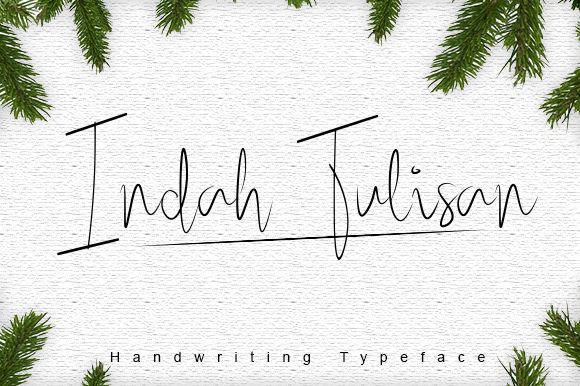
Indah Tulisan Font: Elevate Your Design with a Simple yet Charming Handwriting Font
When it comes to creating visually stunning designs, typography plays a crucial role. The right font can make or break a design project. If you’re looking for a font that can add a touch of elegance and charm to your work, look no further than Indah Tulisan Font. In this article, we’ll explore the features and benefits of Indah Tulisan, a simple yet extraordinary handwriting font that can turn any design project into a beautiful artwork.
What is Indah Tulisan Font?
Indah Tulisan is a handwriting font that boasts a simple and charming design. Its unique nuances make it stand out from other fonts, adding a touch of personality to any design project. The font’s simplicity makes it versatile and easy to use, while its charm adds a creative and artistic flair.
Benefits of Using Indah Tulisan Font in Your Design
Using Indah Tulisan Font in your design project can bring numerous benefits. Here are a few:
- Elegance and Sophistication: Indah Tulisan adds a touch of elegance and sophistication to any design project, making it perfect for projects that require a high level of professionalism.
- Uniqueness and Personality: The font’s unique design ensures that your design project stands out from the crowd, adding a touch of personality and creativity.
- Versatility: Indah Tulisan is a versatile font that can be used in various design projects, from branding and advertising to packaging and digital media.
How to Use Indah Tulisan Font in Your Design Project
Using Indah Tulisan Font in your design project is easy. Here are a few tips:
- Pair it with Other Fonts: Indah Tulisan can be paired with other fonts to create a unique and visually appealing design.
- Experiment with Colors: The font looks great in various colors, so don’t be afraid to experiment and find the perfect color scheme for your design.
- Use it for Headings and Titles: Indah Tulisan is perfect for headings and titles, adding a touch of elegance and sophistication to your design.
Design Inspiration: How Indah Tulisan Font Can Elevate Your Work
Indah Tulisan Font can elevate your design work in many ways. Here are a few examples:
- Branding and Identity: Use Indah Tulisan to create a unique and memorable brand identity that stands out from the crowd.
- Advertising and Marketing: The font is perfect for advertising and marketing materials, adding a touch of elegance and sophistication to your campaigns.
- Packaging Design: Indah Tulisan can be used to create beautiful and eye-catching packaging designs that showcase your product in a unique and creative way.
Typography Tips: Getting the Most out of Indah Tulisan Font
Here are a few typography tips to help you get the most out of Indah Tulisan Font:
- Pay Attention to Kerning and Spacing: Make sure to adjust the kerning and spacing to ensure that the text is easy to read and visually appealing.
- Experiment with Font Sizes: Indah Tulisan looks great in various font sizes, so don’t be afraid to experiment and find the perfect size for your design.
- Use it for Emphasis: Use Indah Tulisan to add emphasis to certain words or phrases, creating a visually appealing and easy-to-read design.
Indah Tulisan Font is a simple yet charming handwriting font that can elevate any design project into a beautiful artwork. Its unique nuances and versatility make it perfect for various design projects, from branding and advertising to packaging and digital media. By following the tips and guidelines outlined in this article, you can get the most out of Indah Tulisan Font and create stunning designs that showcase your creativity and skill.